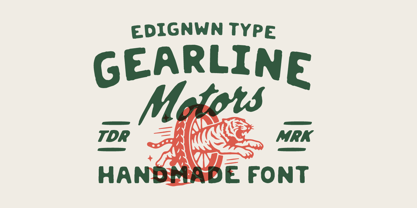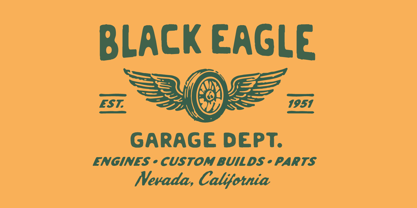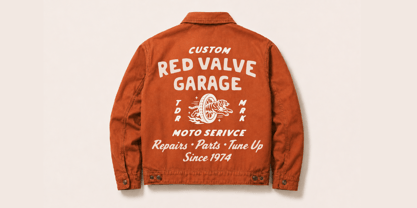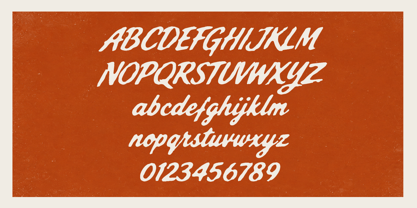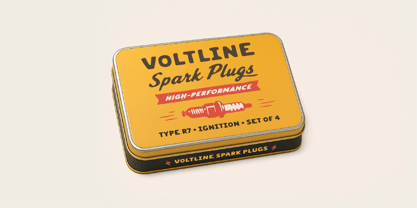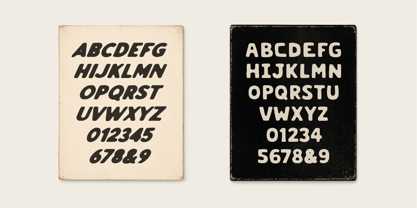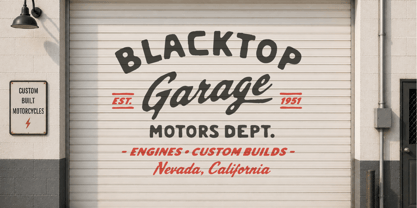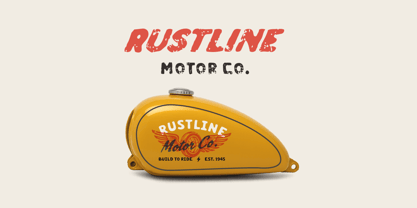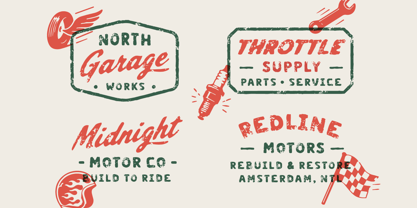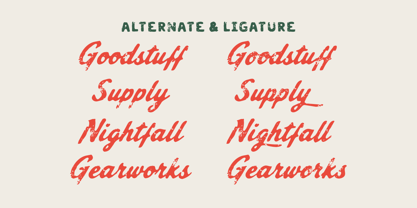
Gearline Motors
by Edignwn Type
Gearline Motors is a handcrafted display font family built for motorcycle, garage, and workshop-inspired branding. Designed for visual branding designers creating logos, apparel, signage, packaging, posters, and custom garage identities, this typeface brings a bold handmade character.
The family includes script and two sans typefaces, giving you three different handcrafted styles that work together as one complete type system. Each typeface comes in regular and textured, making it easy to create both clean layouts and more worn, distressed visuals. Inspired by hand-painted garage lettering and old workshop signage. Gearline Motors has a strong handcrafted feel that naturally fits retro and vintage-inspired branding.
Gearline Motors includes:
- 3 typefaces (Gearline Motors Script, Gearline Motors Sans 01, and Gearline Motors Sans 02)
- 2 styles for each typeface (Regular & Textured)
- Uppercase, lowercase, numeral, symbol, punctuation, alternate and ligature in Gearline Motors Script
- All-caps, numeral, symbol and punctuation in Gearline Motors 01, and Gearline Motors Sans 02